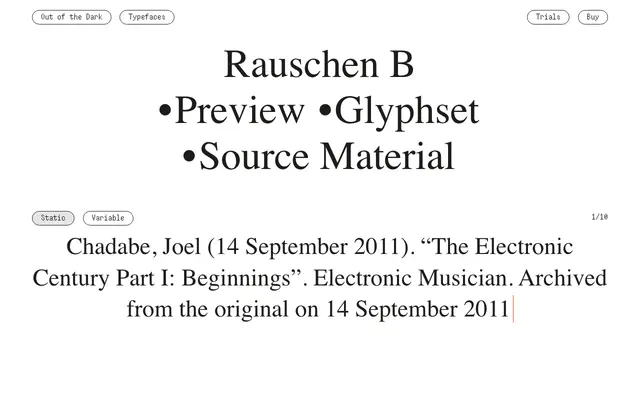
Rauschen B
A twelve-style grotesque family with variable font support, forming part of Out of the Dark's broader Rauschen series alongside Rauschen A and Rauschen Max.
Rauschen B offers six weights from Regular to Black, each with a matching italic, plus a variable font axis. It sits within a wider Rauschen series that includes Rauschen A and Rauschen Max, suggesting a structured system designed for range and consistency across different typographic contexts. The source material references electronic music history, hinting at a conceptual underpinning tied to sound and signal.
The family name and its companion Rauschen A suggest a systematic grotesque or neo-grotesque structure; the weight range and italic complement are consistent with a workhorse text or display sans-serif.